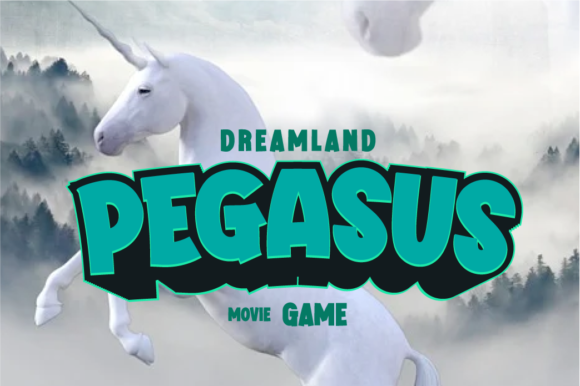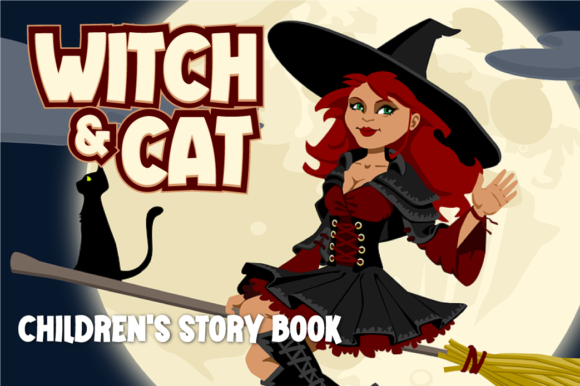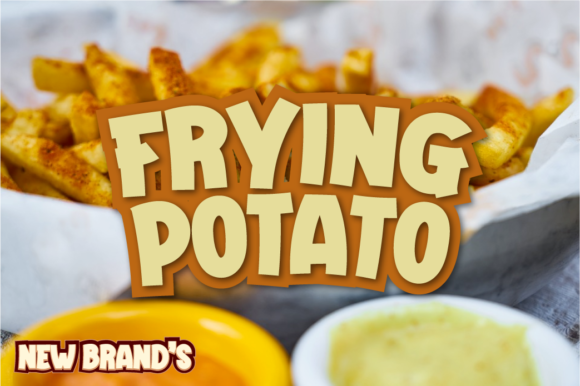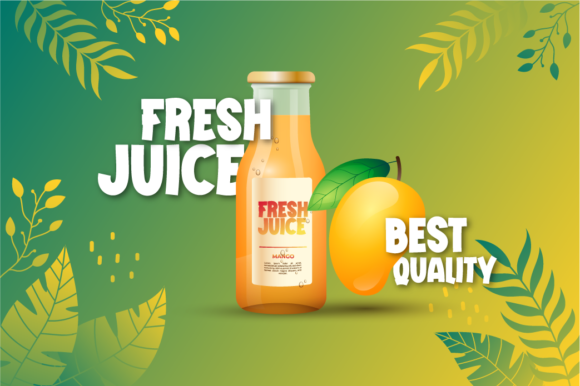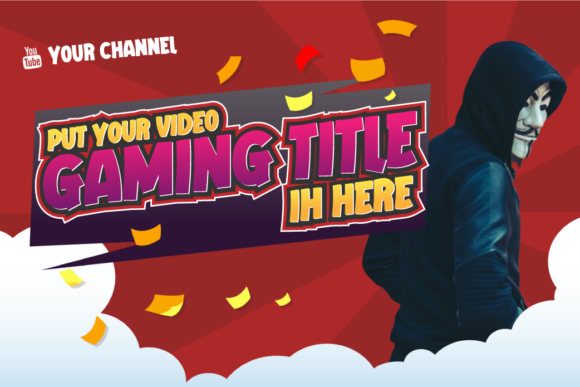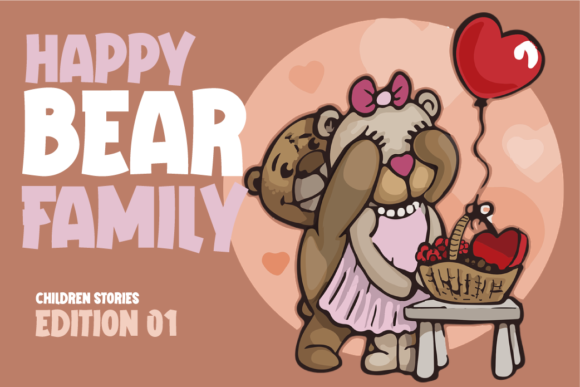
Gamking Font: The Ultimate Display Font for Bold Designs
In the world of design, fonts play a crucial role in conveying the message and tone of a project. When it comes to creating bold and eye-catching designs, a stylish display font is essential. Introducing Gamking Font, a bold and stylish display font that is sure to make any design stand out! In this article, we’ll explore the features and benefits of Gamking Font, and how it can elevate your designs to the next level.
What is Gamking Font?
Gamking Font is a bold and stylish display font designed to add a strong personality to any design project. Its unique and modern style makes it perfect for a wide range of applications, from games and posters to movie titles, menus, magazines, and social media posts. With Gamking Font, you can add a touch of sophistication and glamour to your designs, making them instantly stand out from the crowd.
Key Features of Gamking Font
- Bold and Stylish: Gamking Font is a bold and stylish display font that is designed to make a statement. Its strong and confident lines make it perfect for creating eye-catching designs.
- Versatile: Gamking Font is suitable for a wide range of design projects, including games, posters, movie titles, menus, magazines, and social media posts.
- Easy to Read: Despite its bold style, Gamking Font is easy to read, making it perfect for use in titles, headings, and other design elements.
- Unique and Modern: Gamking Font has a unique and modern style that is sure to make your designs stand out from the crowd.
Benefits of Using Gamking Font
So, why should you choose Gamking Font for your design projects? Here are just a few benefits of using this amazing display font:
- Adds Personality: Gamking Font adds a strong personality to any design project, making it perfect for brands and designers who want to make a statement.
- Increases Visibility: The bold and stylish design of Gamking Font makes it perfect for use in titles, headings, and other design elements where you want to grab the attention of your audience.
- Enhances Creativity: Gamking Font is a versatile font that can be used in a wide range of design projects, allowing you to experiment and try new things.
- Professional and Sophisticated: Gamking Font has a professional and sophisticated style that is perfect for use in high-end designs, such as luxury brands, movie titles, and more.
How to Use Gamking Font
Using Gamking Font is easy! Here are a few tips to get you started:
- Use it as a Title Font: Gamking Font is perfect for use as a title font in designs such as posters, movie titles, and social media posts.
- Add it to Your Logo: The bold and stylish design of Gamking Font makes it perfect for use in logos and branding projects.
- Experiment with Different Colors: Gamking Font looks great in a wide range of colors, so don’t be afraid to experiment and try new things.
- Pair it with Other Fonts: Gamking Font can be paired with other fonts to create a unique and interesting design.